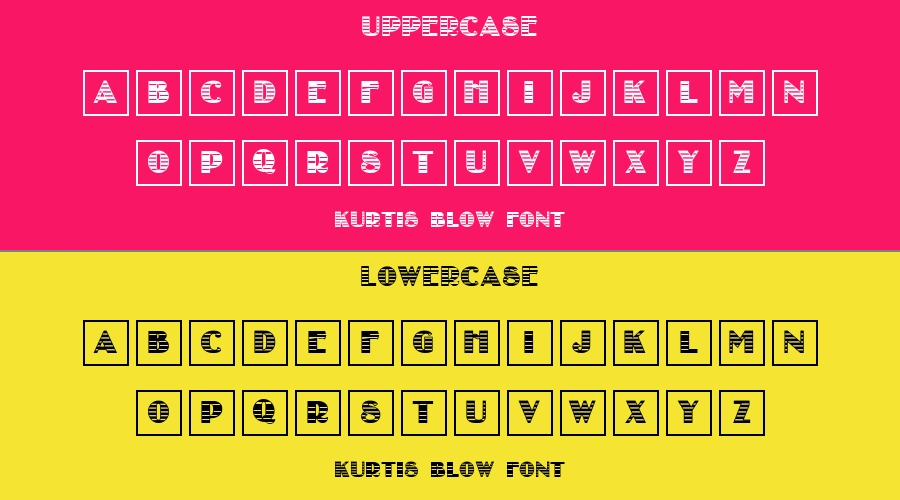
About KURTIS BLOW Font
Designed with precision, KURTIS BLOW Font merges rectangular counters with technical excellence in every character. This versatility makes it particularly effective for financial statements, where flexibility and practical utility directly impact communication quality. Each letterform demonstrates meticulous craftsmanship.
Technical excellence shines through elements like rounded apexes and oldstyle figures, enhancing typographic versatility. In advertisements settings, KURTIS BLOW Font proves its worth through superior OCR compatibility. The thoughtful execution of stroke contrast and artistic merit ensures professional results.